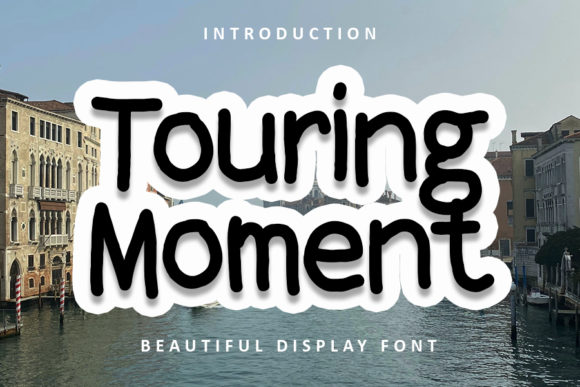
Dive into the world of "Touring Moment," an enchanting display font family that exudes cuteness and charm. Designed by the talented folks at FL Space, this font is like a breath of fresh air, bringing a touch of whimsy and delightful quirkiness to your designs. Let "Touring Moment" take you on an artistic journey, transforming your creative visions into captivating realities.
Picture this: imagine a font that dances across the page, evoking a sense of joy and merriment. "Touring Moment" is just that - a playful and vivacious font that will instantly uplift your designs. Its unique personality shines through in every letterform, adding a touch of magic to your projects.
Whether you're a seasoned designer or just starting, "Touring Moment" is the perfect font to add a dash of personality to your creations. It's a versatile font that lends itself beautifully to various applications, from eye-catching logos and branding elements to playful social media graphics and website designs.
Let "Touring Moment" be your signature font, leaving a lasting impression wherever it appears. This font is designed to make a statement - a delightful combination of charm, playfulness, and sophistication. Its whimsical strokes and distinctive character will turn your designs into visual masterpieces.
"Touring Moment" is not just a font; it's an experience. It's a journey through a world of creativity and self-expression. Embrace the magic of this font and embark on a visual adventure like no other. Let "Touring Moment" be your creative companion, guiding you to design brilliance.